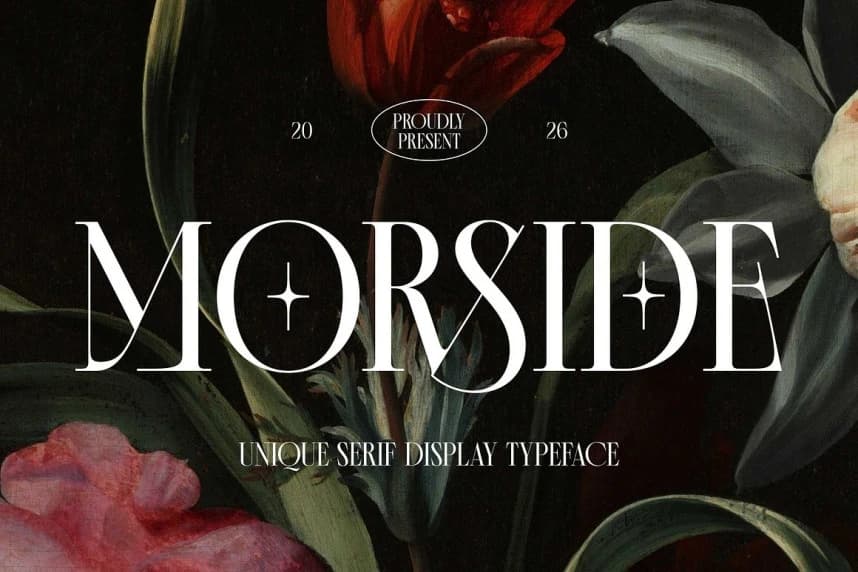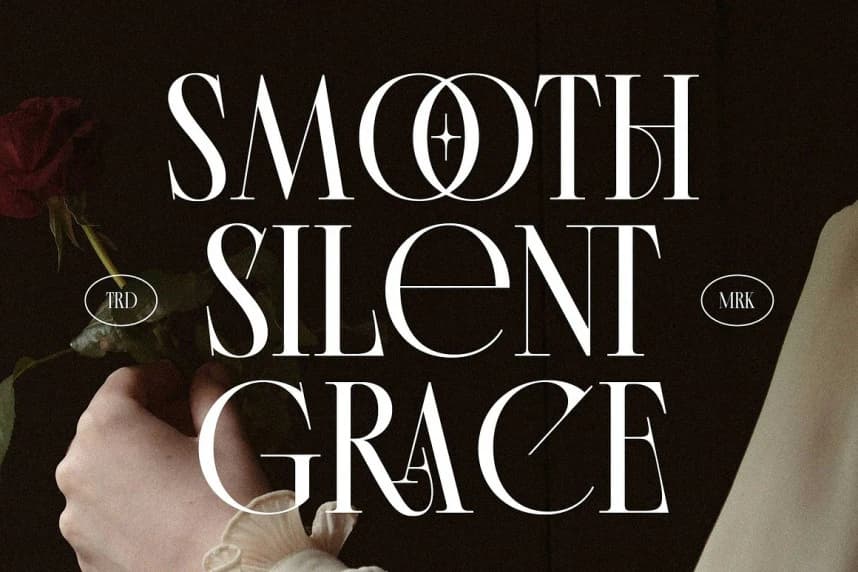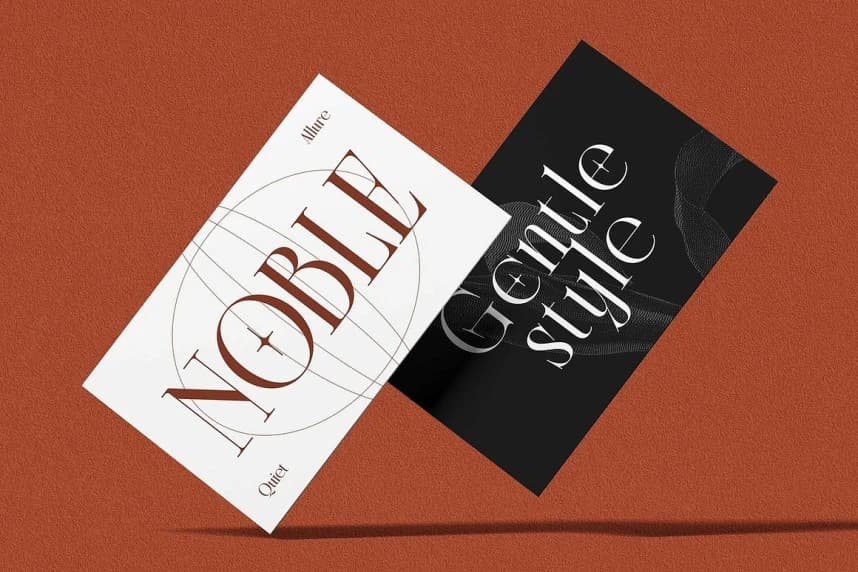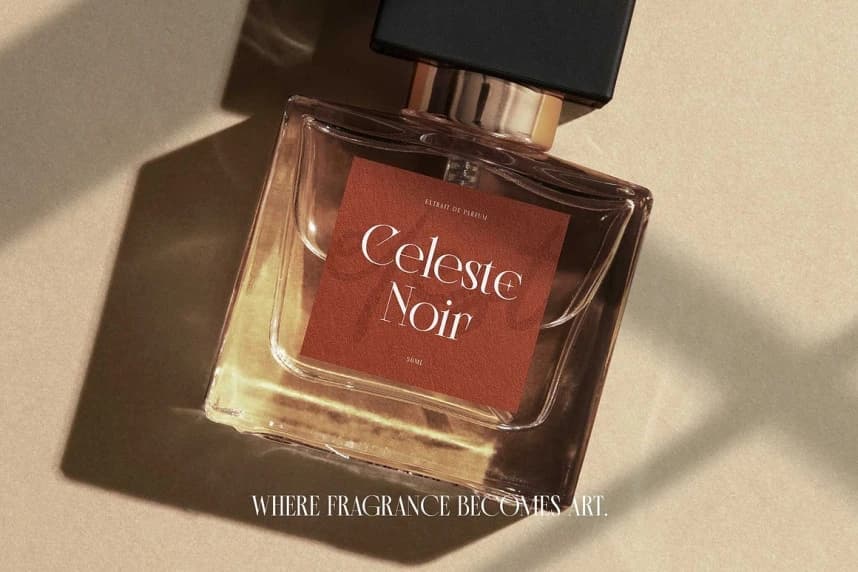
Morside Font
Morside Font is a refined modern serif typeface that blends timeless elegance with contemporary sophistication. Designed with high contrast strokes, graceful curves, and distinctive details, it creates a luxurious and artistic impression that feels both classic and fresh.